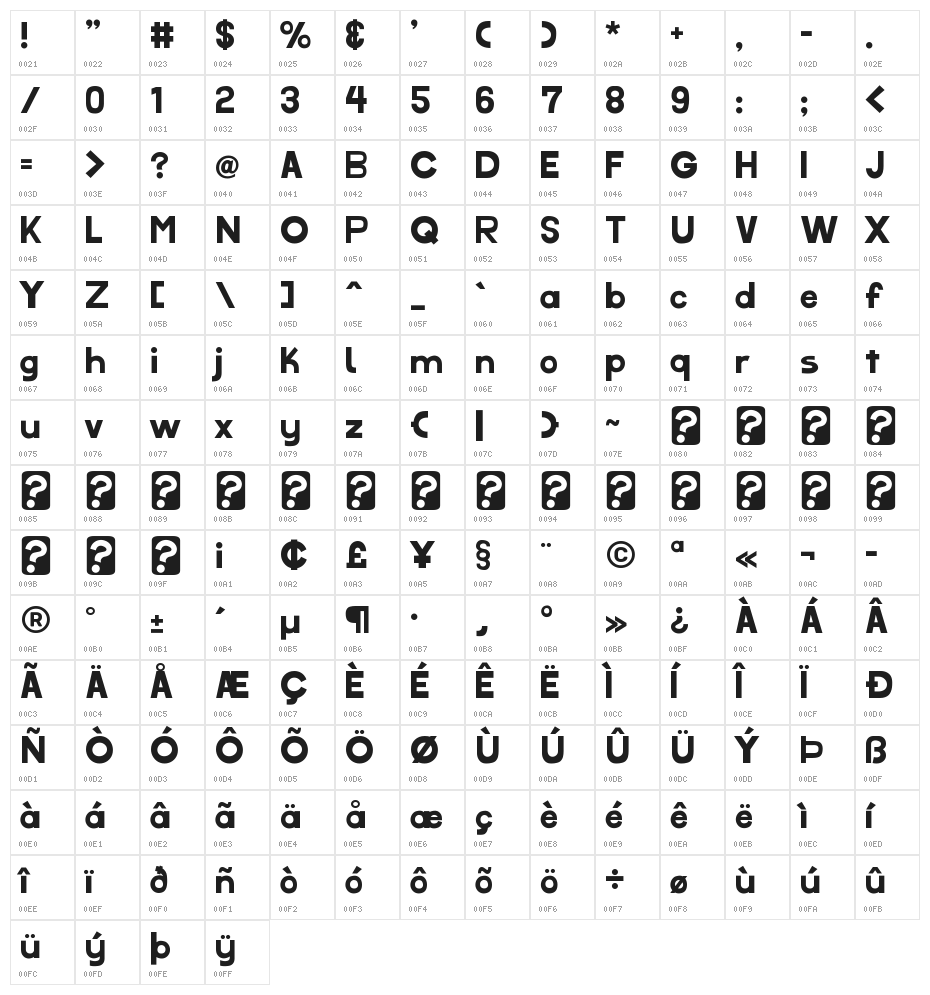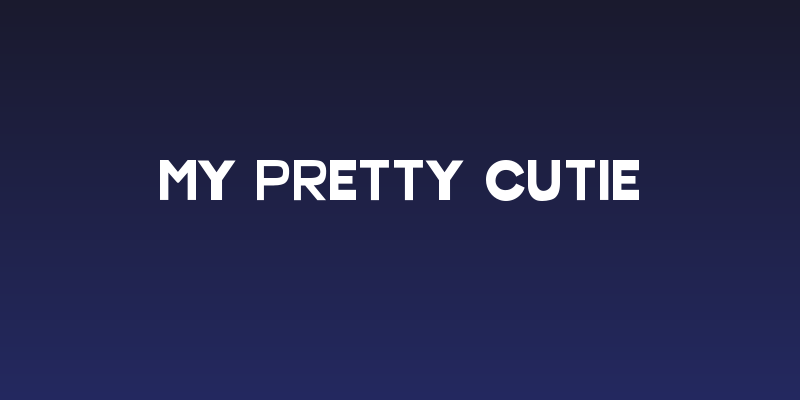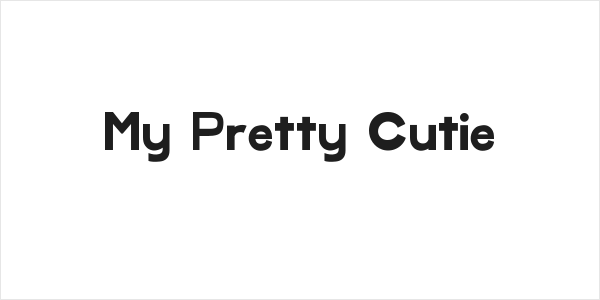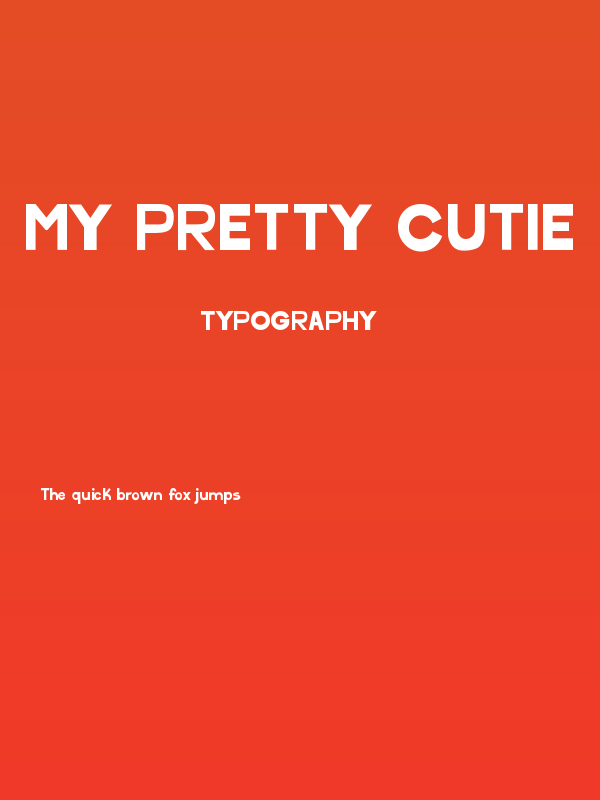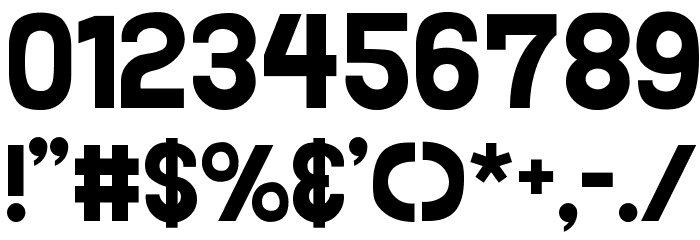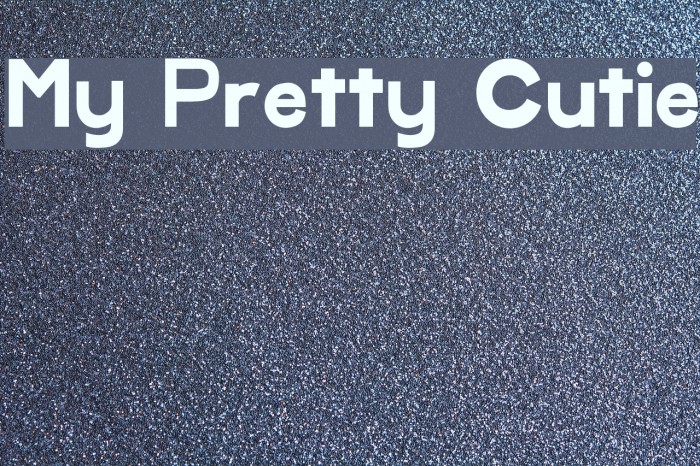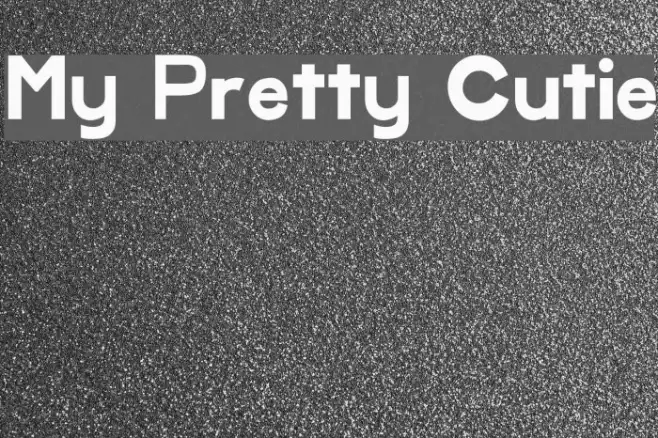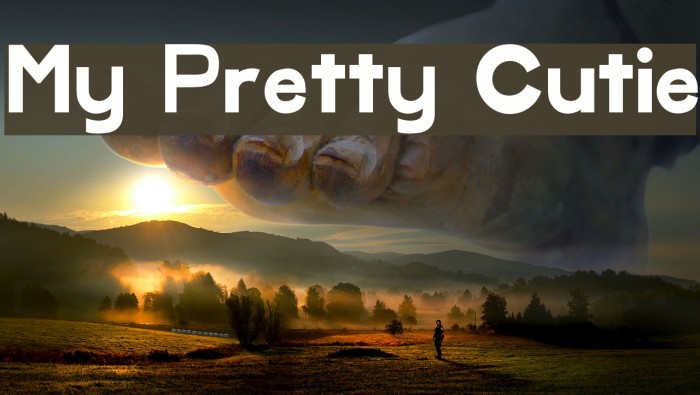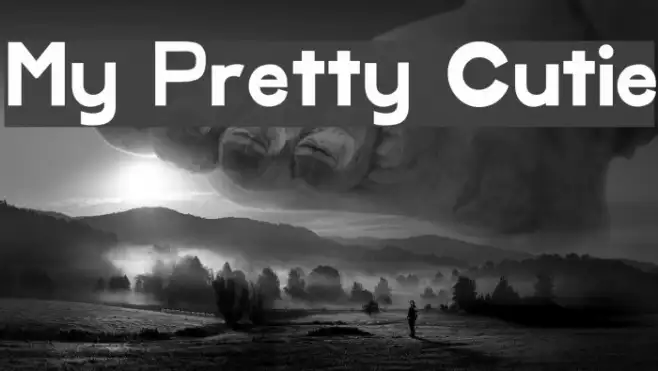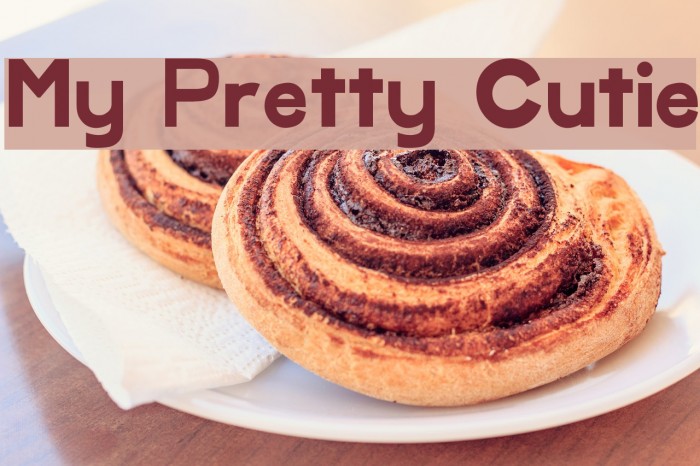
My Pretty Cutie Font
My Pretty Cutie Description
This font features a bold and modern aesthetic with clean, geometric lines and a strong presence. The uppercase letters are uniform in height, creating a cohesive and structured appearance. The lowercase letters maintain a similar geometric style, with rounded edges that add a touch of softness to the overall design. The numerals are consistent with the bold style, ensuring readability and impact. Special characters are well-integrated, maintaining the font's modern and bold characteristics. This typeface is versatile, suitable for a variety of design projects that require a contemporary and assertive look.